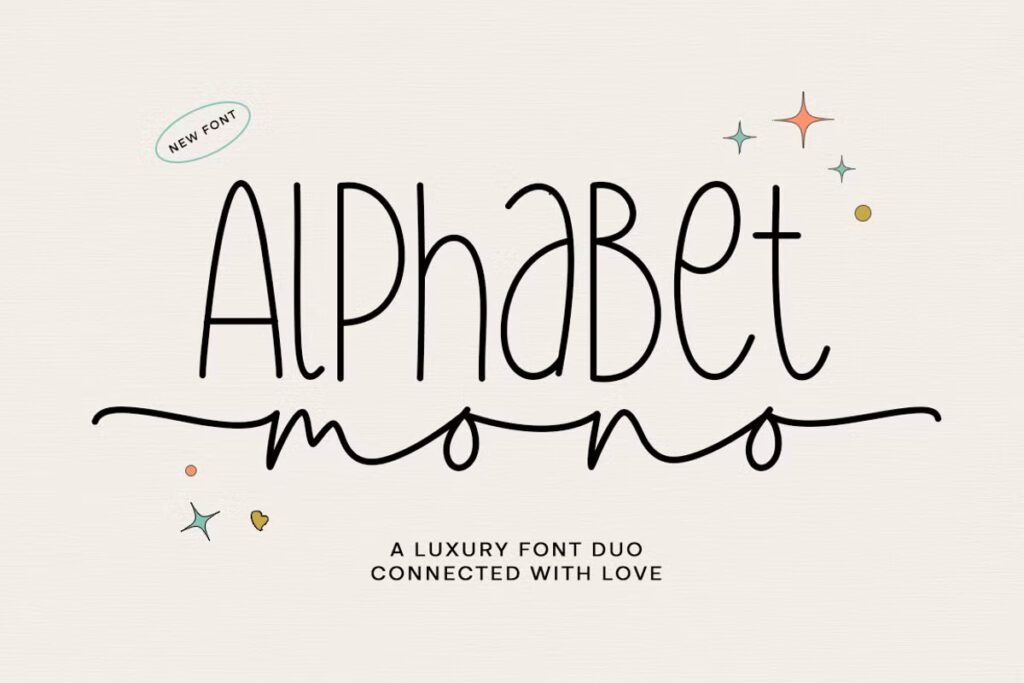
Alphabet Mono Duo – A Handwritten Font with Elegance
Meet Alphabet Mono Duo, a modern handwritten font with a blend of informal yet elegant style. This font comes in two styles: Alphabet Mono Regular and Alphabet Mono Sans Regular, making it versatile for logos, invitation cards, and magazine covers. The hand-drawn typography and sweet romantic design make this font an excellent choice for designs needing a warm, personal touch.